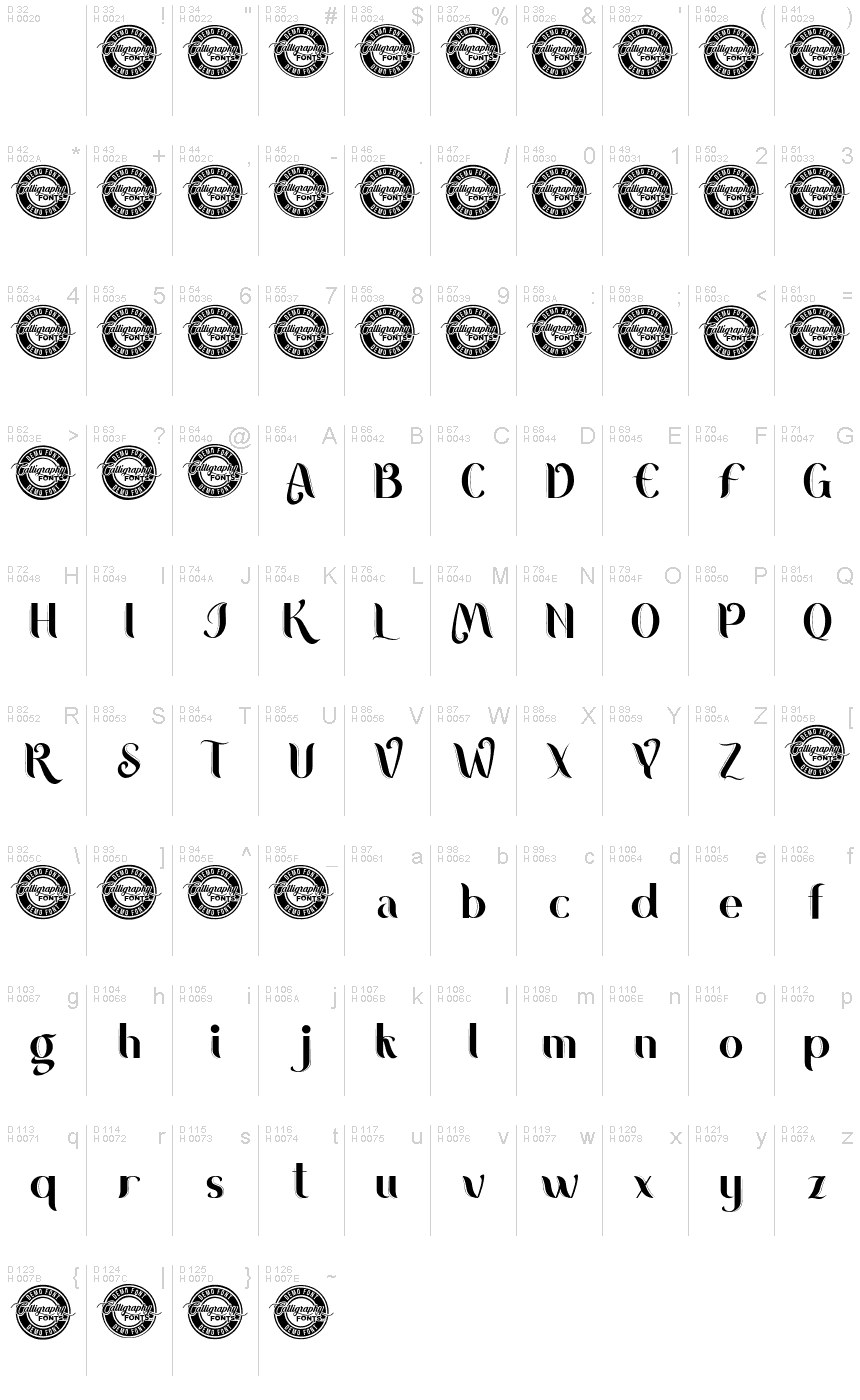
Hollanburg Demo
Hollanburg, a vintage display font designed by Calligraphy Fonts, is the perfect addition to your next creative project. With its unique style and old-school charm, Hollanburg is suitable for a variety of projects such as retro logos, book covers, posters, and packaging designs. This semi-bold font features intricate lettering that will take your design to the next level. The elegant curves and bold lines make it easy to read while still capturing the essence of vintage typography. Don't settle for plain fonts – choose Hollanburg for your next project and watch it come to life with style.